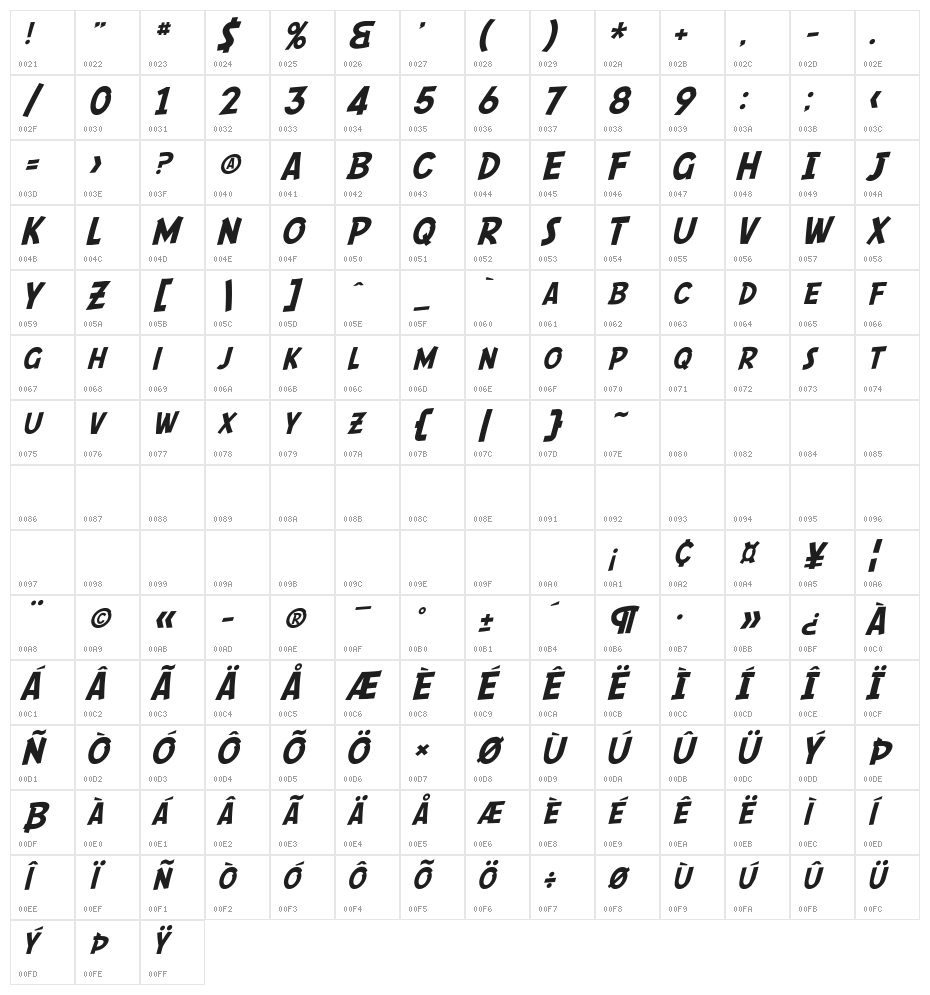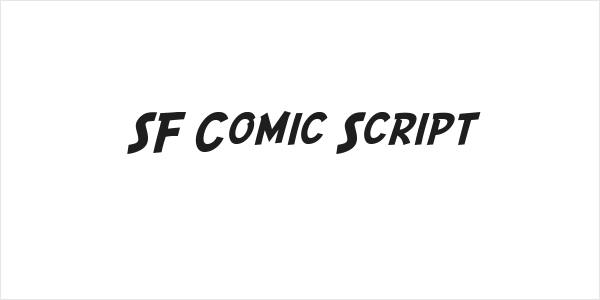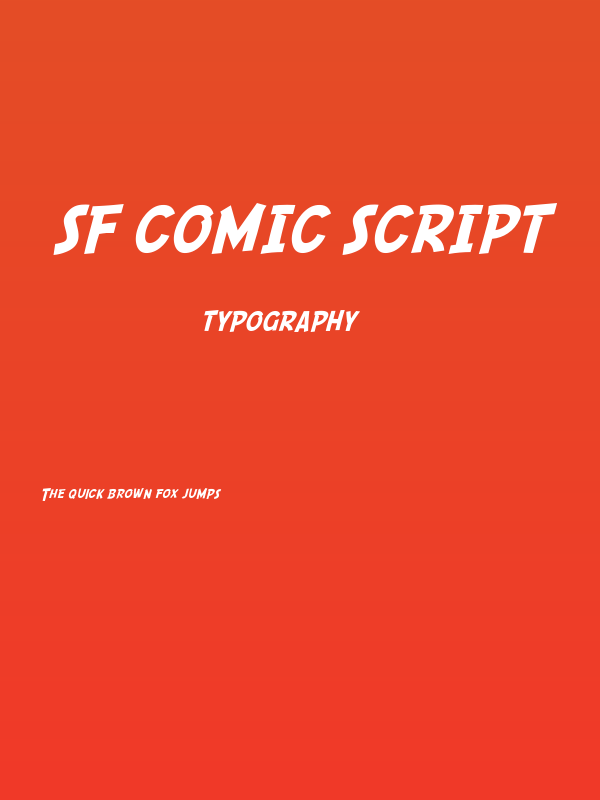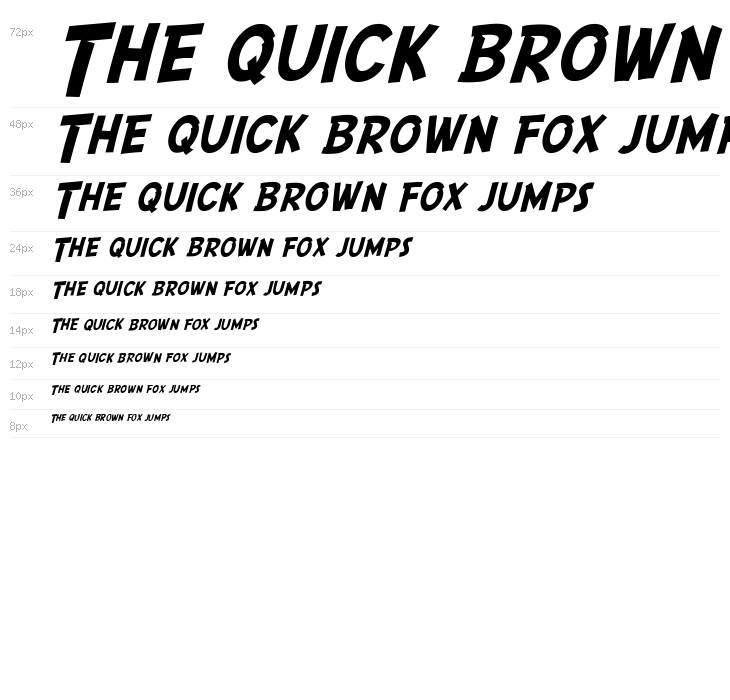
SF Comic Script Font
SF Comic Script Description
This font features a playful and dynamic style, reminiscent of comic book lettering. The characters are bold and slightly italicized, giving a sense of movement and energy. The strokes are thick and consistent, with a medium contrast that adds to the legibility. The overall appearance is informal and friendly, making it suitable for projects that require a fun and engaging tone. The spacing between characters is normal, ensuring readability while maintaining the font's lively character.
| Overall Style | Playful, Comic |
| Proposed Projects | Ideal for comic books, children's books, playful branding, and posters. |